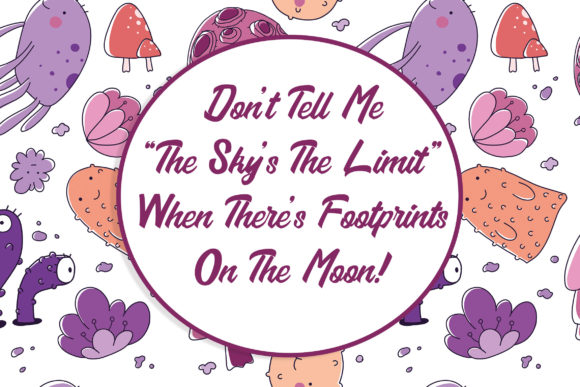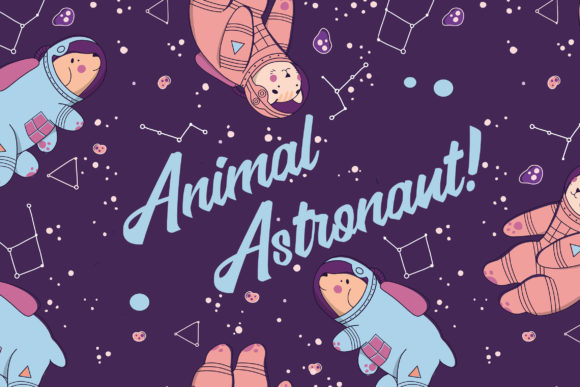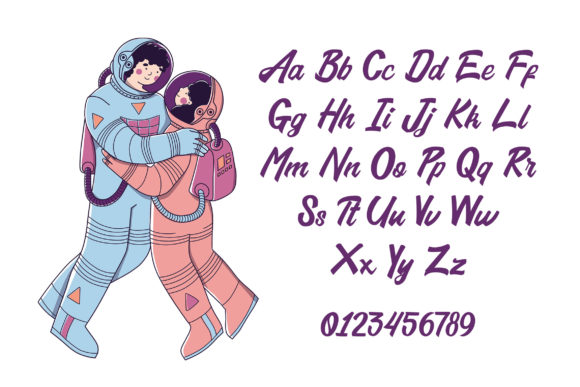
Introduction to Awesome Planet Font
Have you ever found yourself staring at a blank page, wondering what magical world your next creative project could bring to life? That’s where the Awesome Planet Font comes in – a whimsical handwritten font that’s out of this world, literally!
| 📌 Product Name | Awesome Planet Font |
| 👤 Author | Jupiter Studio |
As designers, we’re always on the lookout for the perfect design resource to elevate our work and make it stand out. With the Awesome Planet Font, you can add a touch of high-quality whimsy to your magazine layouts, book covers, children’s designs, or storybooks. Its transparent background makes it easy to layer and blend with other design elements, giving you endless possibilities for creative expression.
Whether you’re working on a free download project or a paid design gig, the Awesome Planet Font is a valuable addition to any designer’s toolkit. Its unique charm and versatility make it perfect for a wide range of applications, from editorial design to children’s book illustrations. So why settle for ordinary when you can have an extraordinary design that’s simply astronomical?
Key Features of Awesome Planet Font
- High-quality design with a unique, futuristic aesthetic, perfect for creative projects.
- OpenType features and advanced typography capabilities, making it ideal for professional designers and creative projects.
Honest Review: Awesome Planet Font
As a designer, I’m always on the lookout for high-quality design resources to elevate my creative projects. The Awesome Planet Font is one of the many fonts I’ve had the chance to try out, and I’m excited to share my honest review with you.
- High-quality design: The font is well-crafted and visually appealing, making it perfect for a variety of creative projects.
- Transparent background: The font’s transparent background makes it easy to use on different backgrounds, giving me more flexibility with my design.
- Limited font styles: While the font is well-crafted, it’s limited to a single style, which may not be suitable for all design projects.
- Not suitable for complex texts: The font may not be the best choice for complex texts, as it can become difficult to read.
Overall, the Awesome Planet Font is a solid addition to any designer’s toolkit. While it may have some limitations, its high-quality design and transparent background make it a great choice for a variety of creative projects.
For the most out of Awesome Planet Font, use it on a transparent background to create a sense of depth and dimension. You can also use it to create custom logos, graphics, and text overlays for social media, websites, and marketing materials.